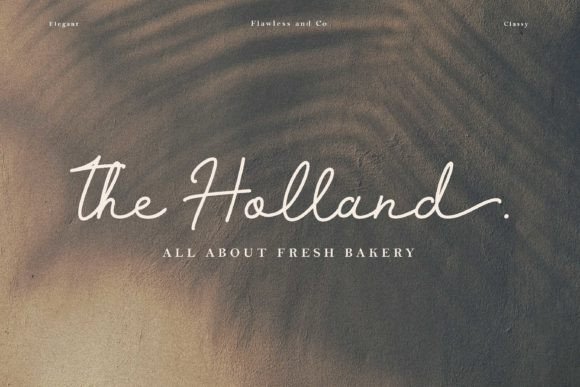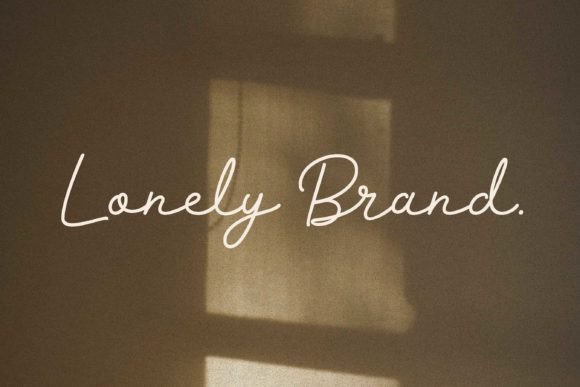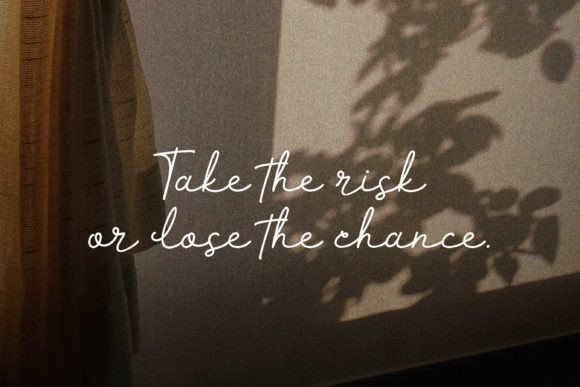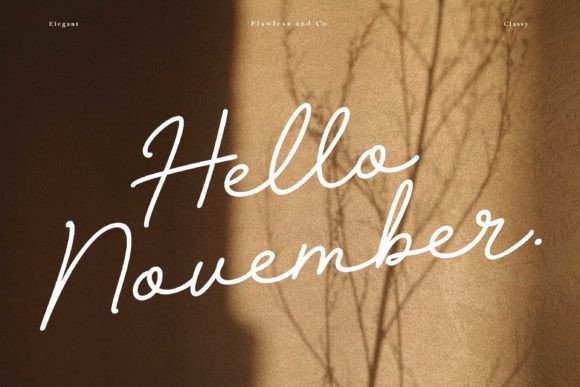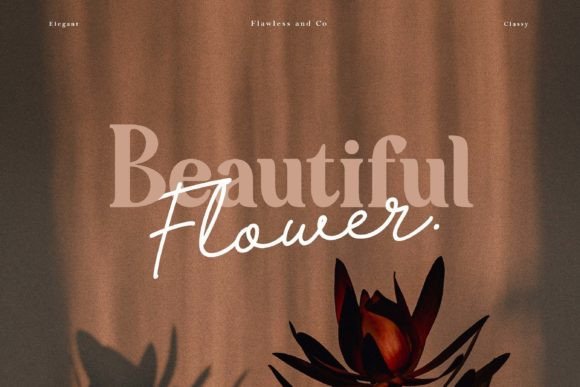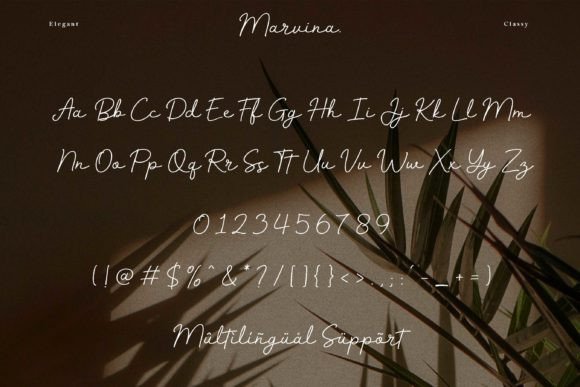
Introduction to Marvina Font
Marvina is a handwritten Script Font made with a classy style for each character.
This font can be used on your branding display or can be fitted in wedding invitations to give a feel of an elegant and beautiful look This font is also suitable for any graphic design: logos, posters, t-shirts, quotes, and more.